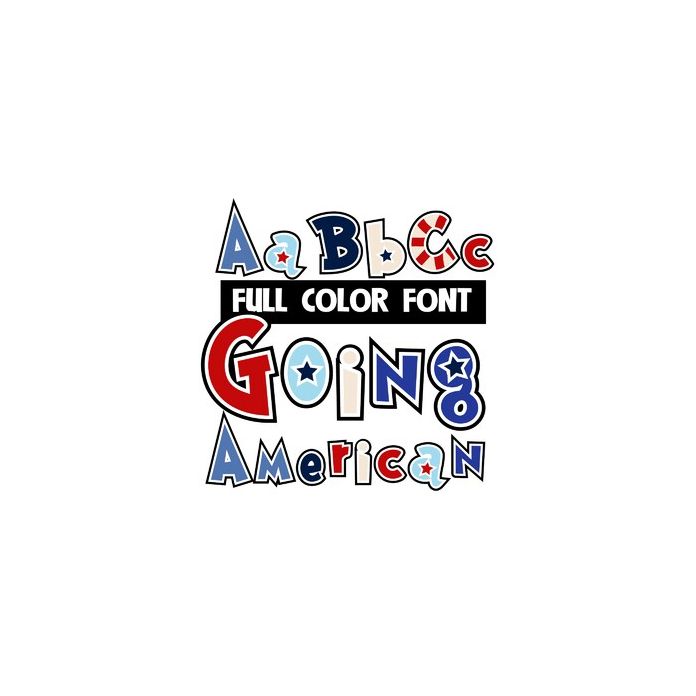
This full-color font features red, white, and blue lettering with stars and stripes. There is an alt upper and lowerase of a different color you can access through your system's glyph map.